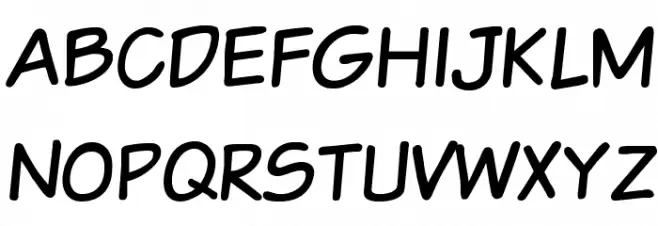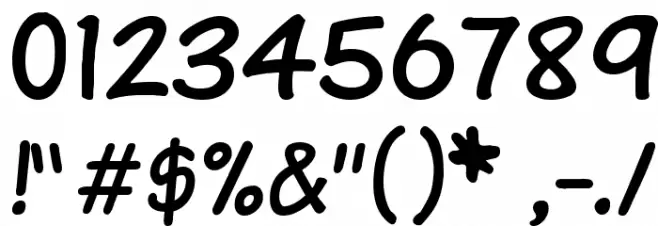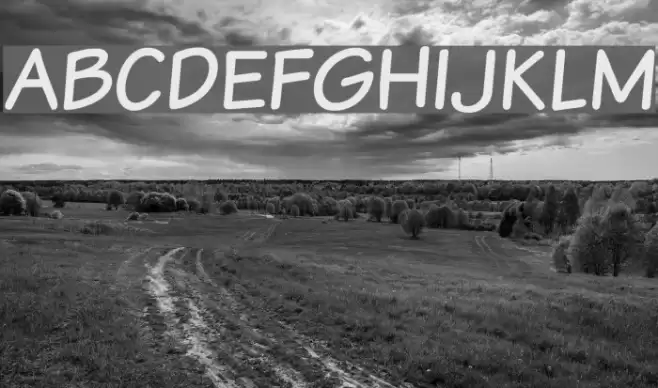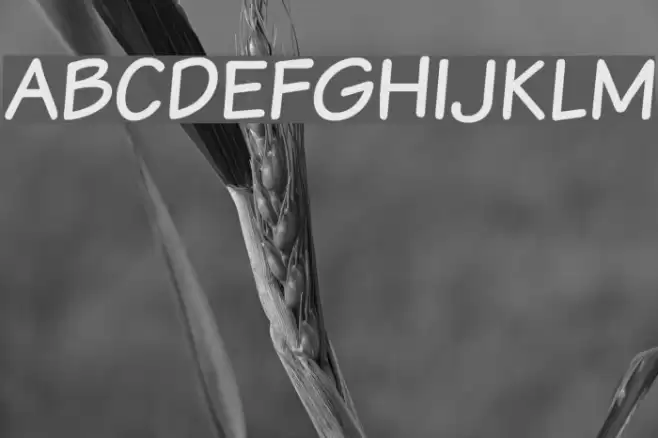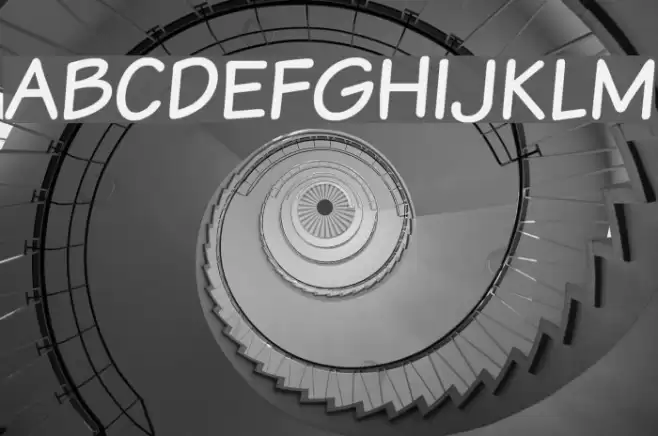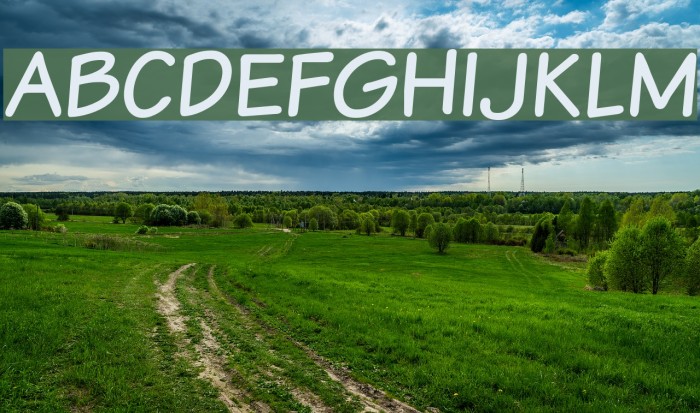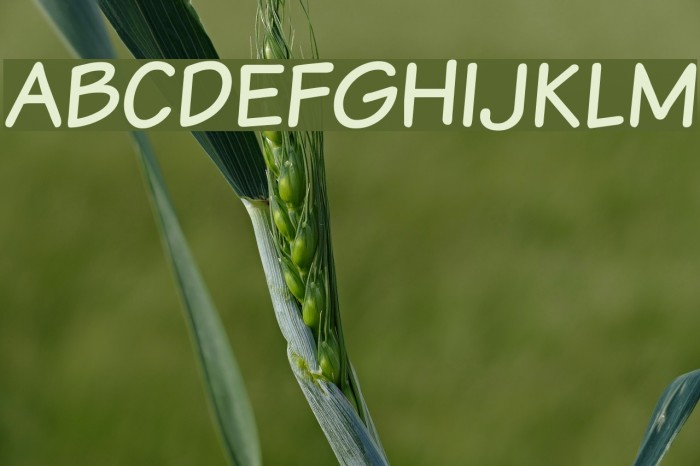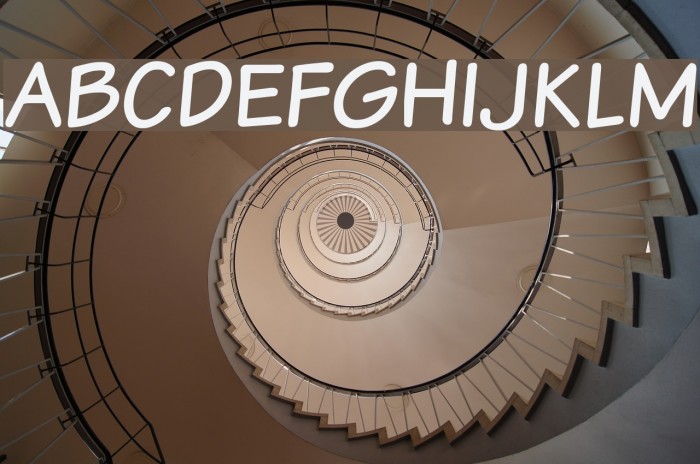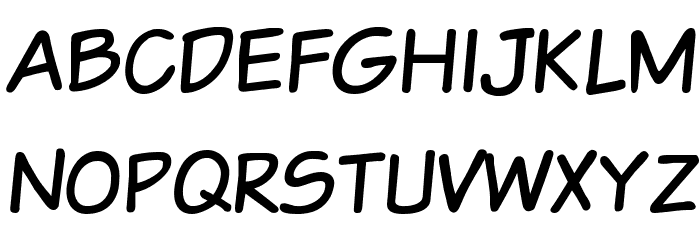
VTCSundaykomixcaps
This playful and energetic font features a handwritten style with a casual, comic-like appearance. The letters are slightly slanted, giving a dynamic feel, and the strokes are bold and rounded, adding to its friendly and approachable nature. The characters are evenly spaced, maintaining readability while conveying a sense of fun and creativity. The font includes a full set of uppercase and lowercase letters, numerals, and a variety of special characters, making it versatile for different design needs.
A playful, comic-style handwritten font with bold, rounded strokes.
- Proposed Projects: Ideal for comic books, children's books, playful branding, and informal invitations.
- Overall Style: Playful
- Use Case: Headlines, Logos, Informal Text